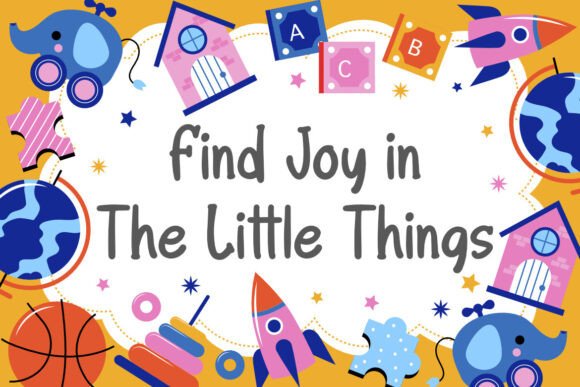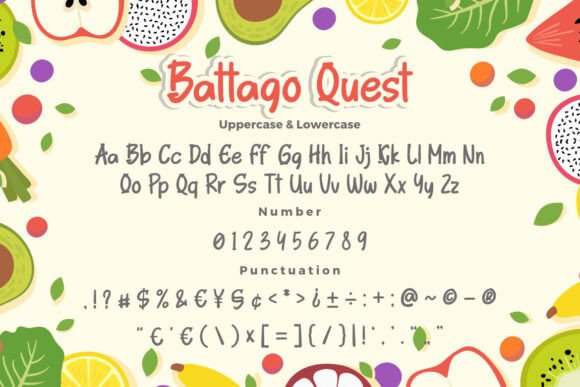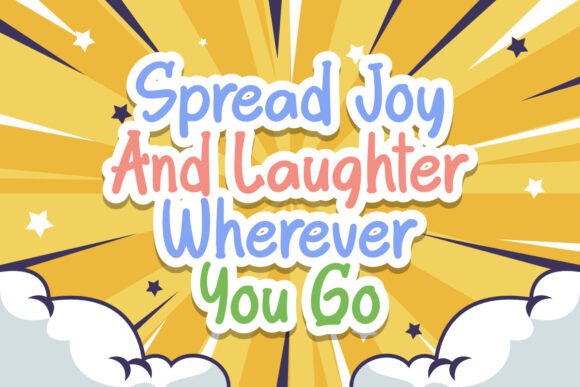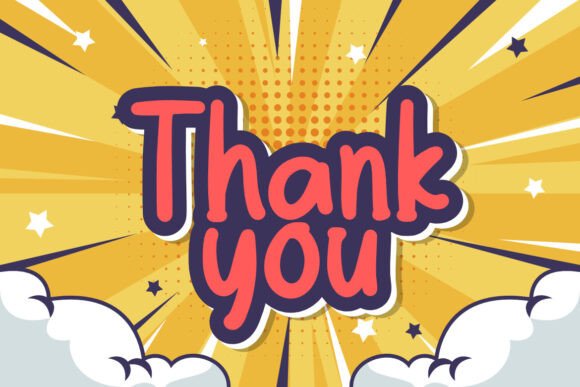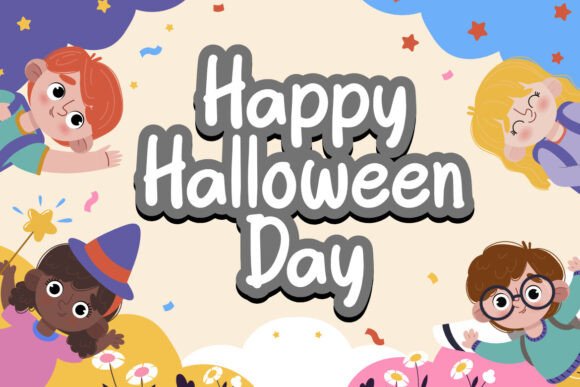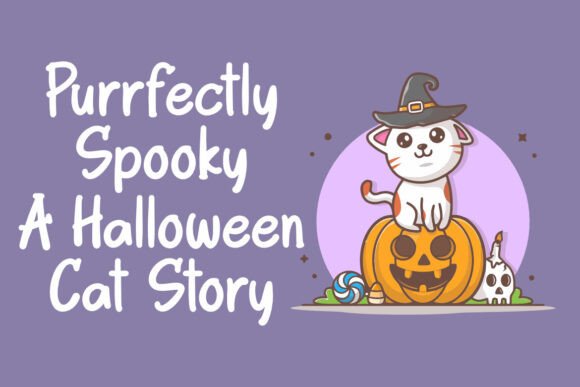
Introduction to Battago Quest Font
**Battago Quest a Playful Handwritten Font**, This font is made with a high premium quality level which you can use as flyers, quotes, posters, banners, packaging, merchandise, logotypes, and much more.
**Battago Quest a Playful Handwritten Font**, This font is made with a high premium quality level which you can use as flyers, quotes, posters, banners, packaging, merchandise, logotypes, and much mor
Key Features of Battago Quest Font
Why Choose Battago Quest Font?
Battago Quest Font offers exceptional quality and versatility, making it a valuable addition to your design toolkit. Whether you’re creating for personal projects or commercial use, Battago Quest Font delivers professional results.